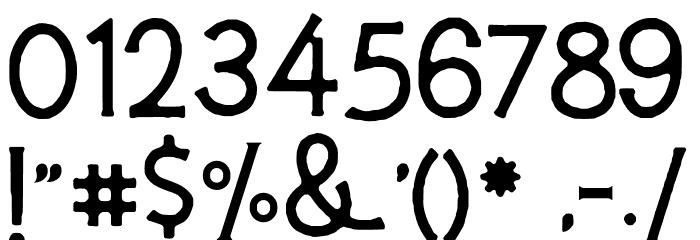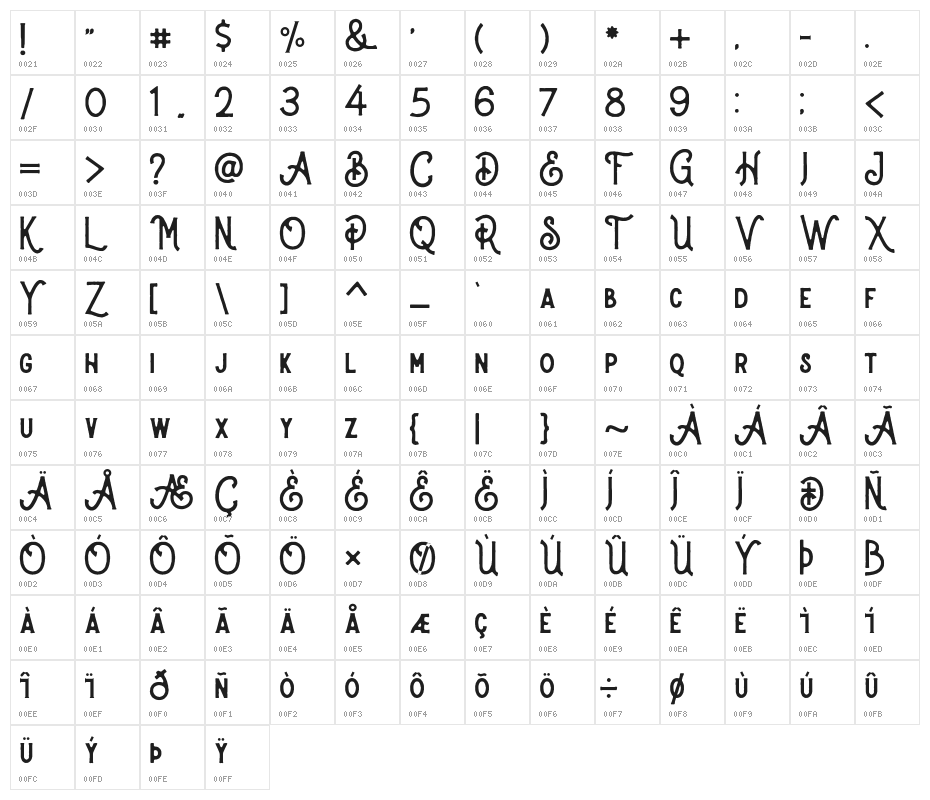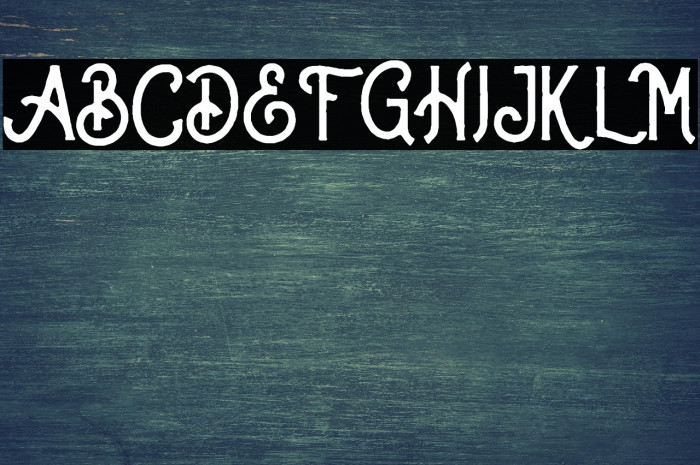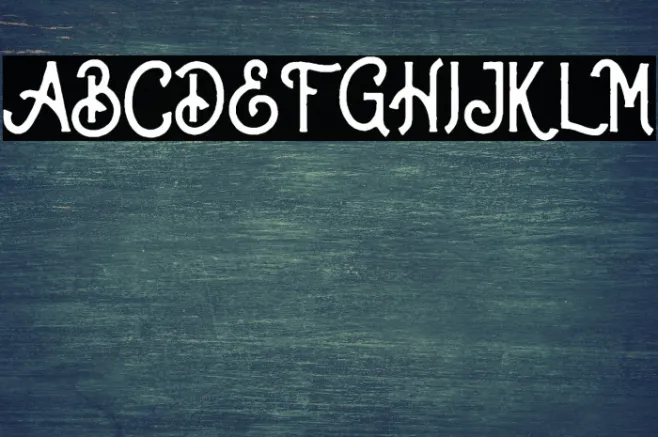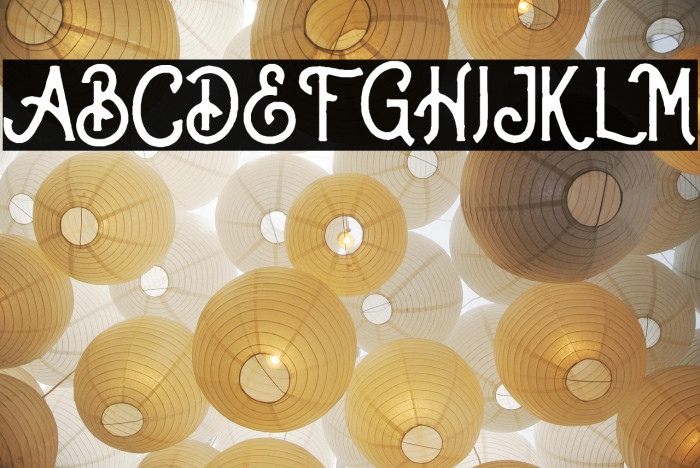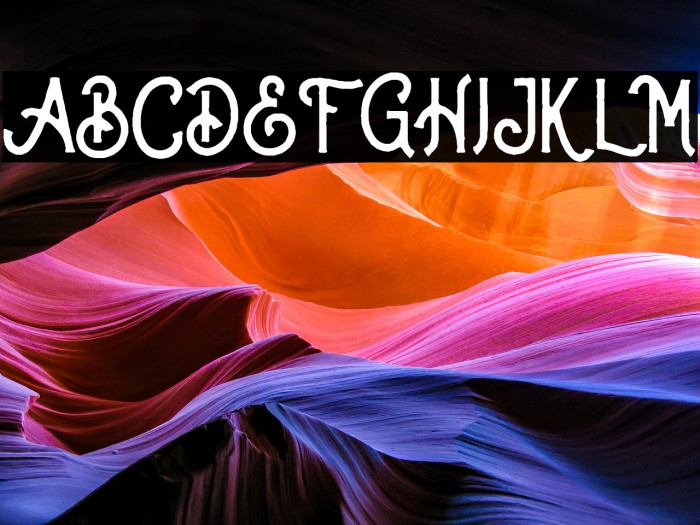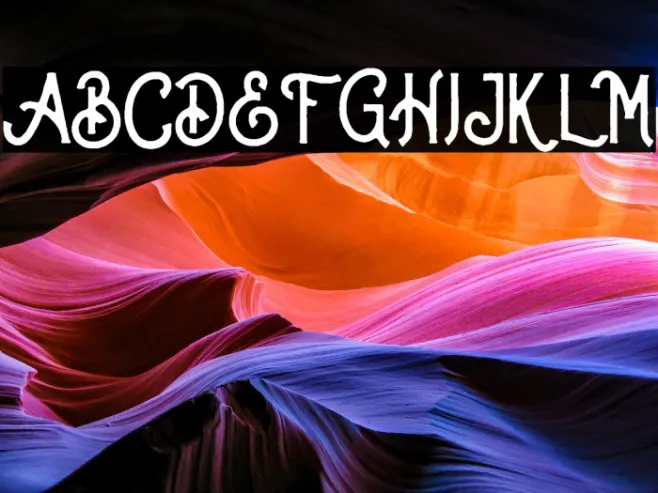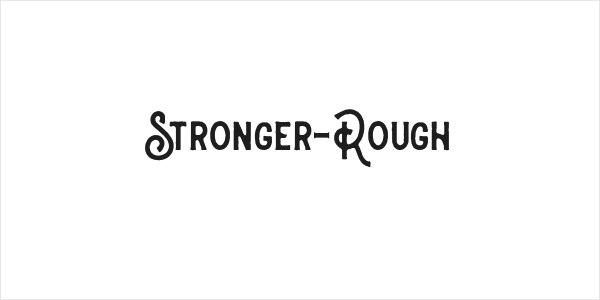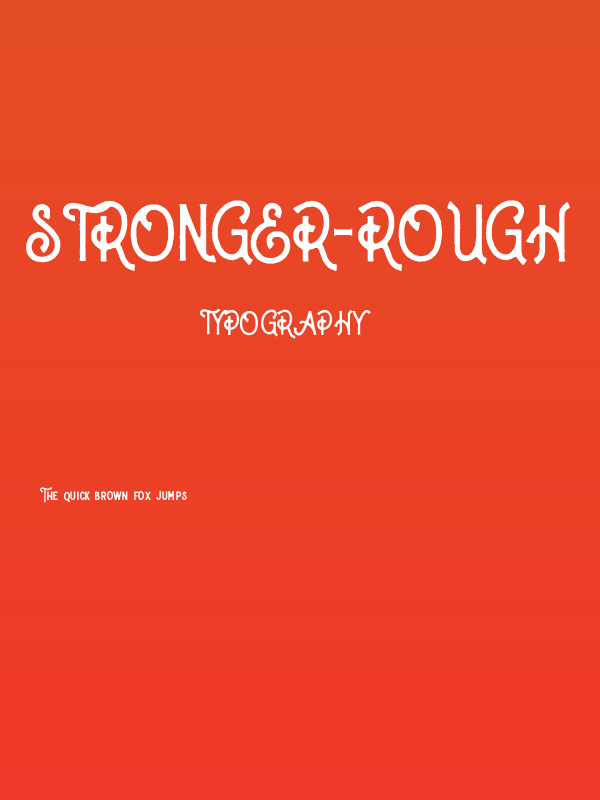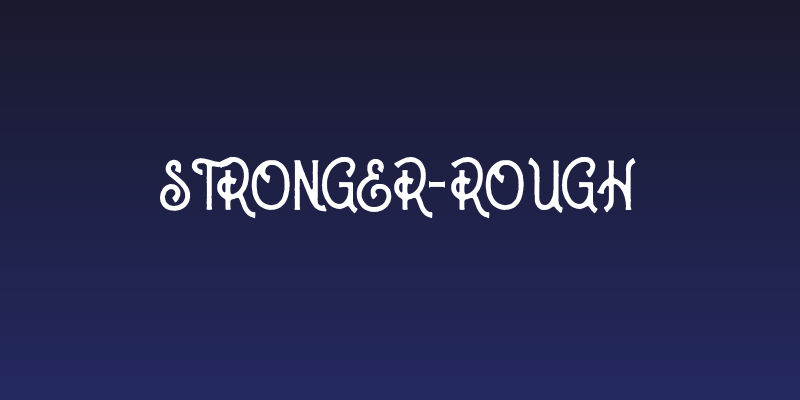
Stronger-Rough Font
Stronger-Rough Description
This font features a bold and rugged style with a hand-drawn appearance, giving it a distinctive and artistic flair. The uppercase letters are characterized by their thick strokes and uneven edges, which contribute to a rough, textured look. The lowercase letters maintain this style, with some characters exhibiting unique flourishes and curves. The numerals are consistent with the overall boldness, ensuring readability while maintaining the font's artistic integrity. Special characters are creatively designed, adding to the font's versatility. This font is ideal for projects that require a strong visual impact and a touch of creativity.